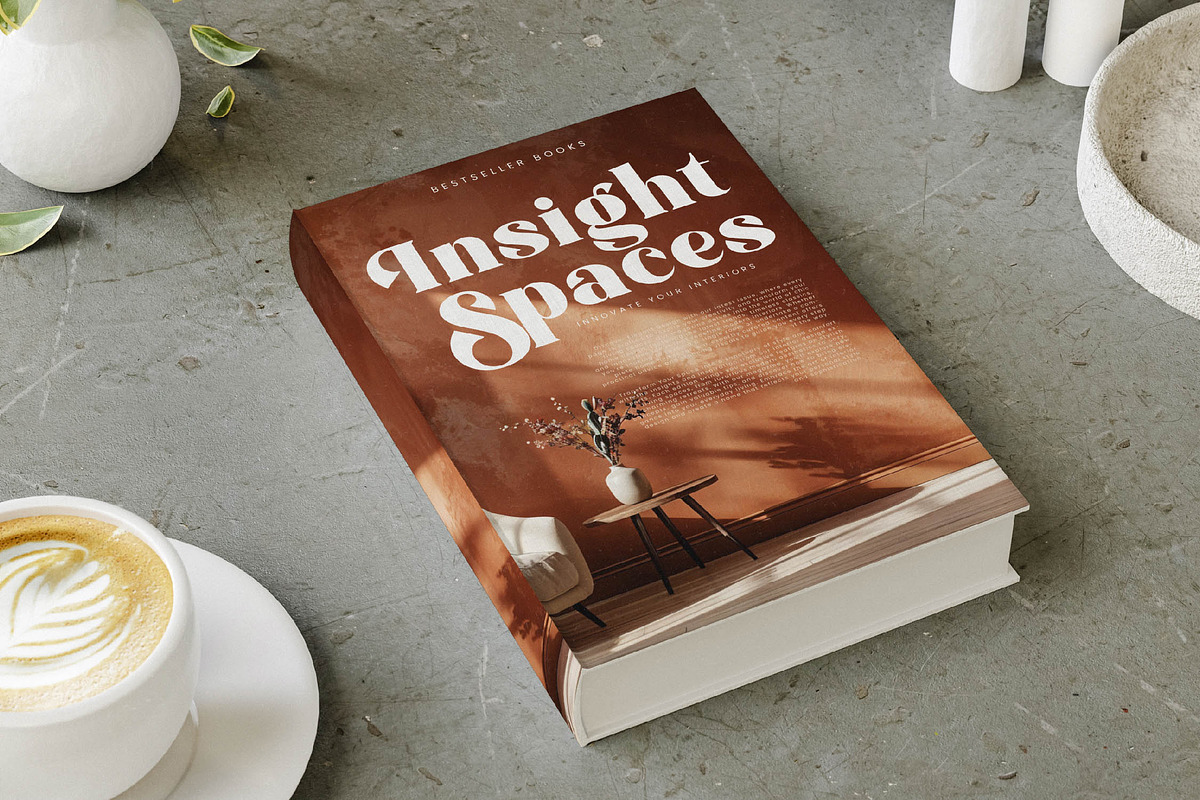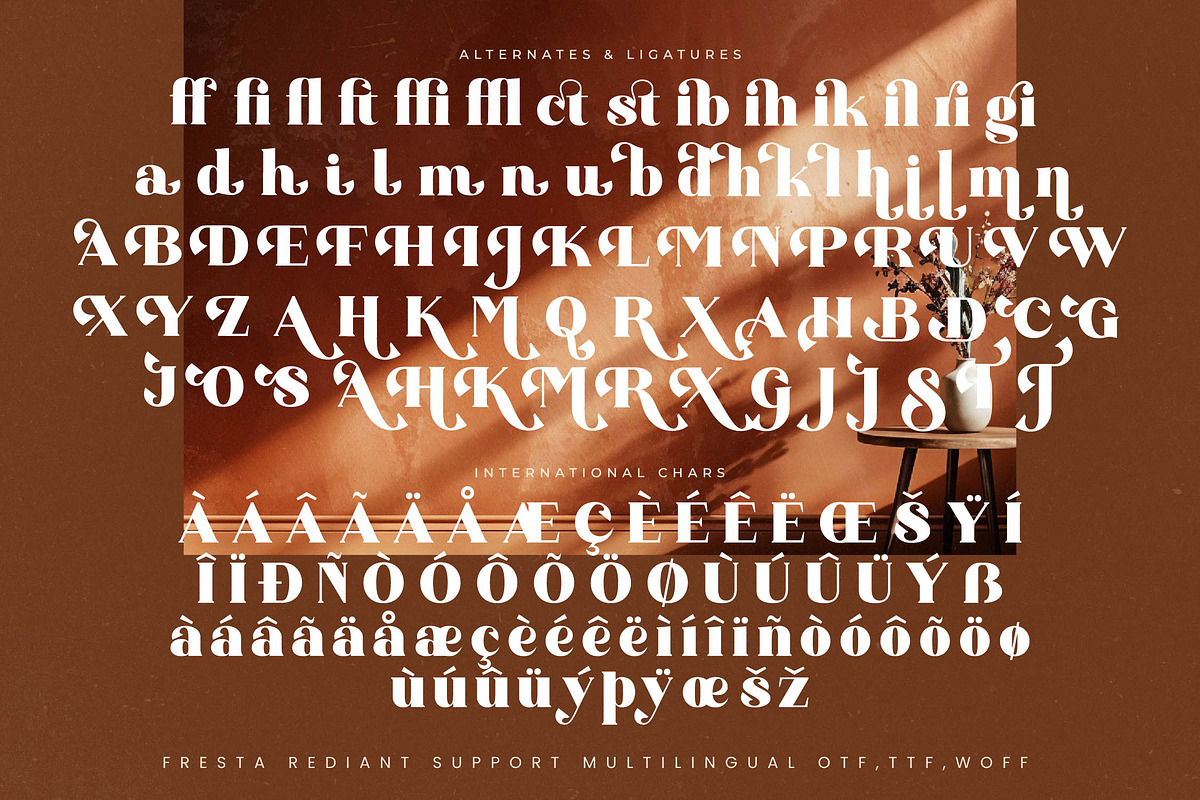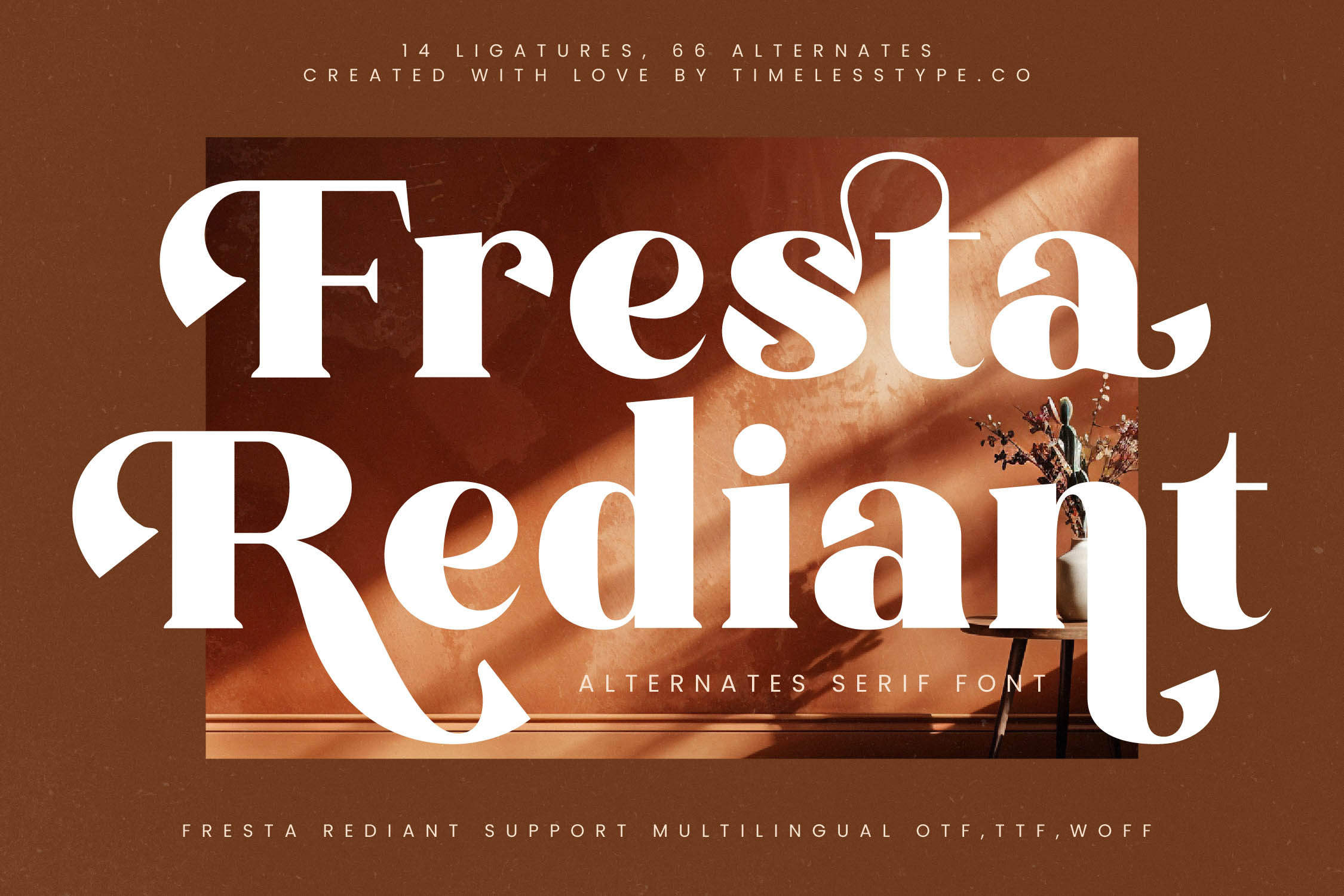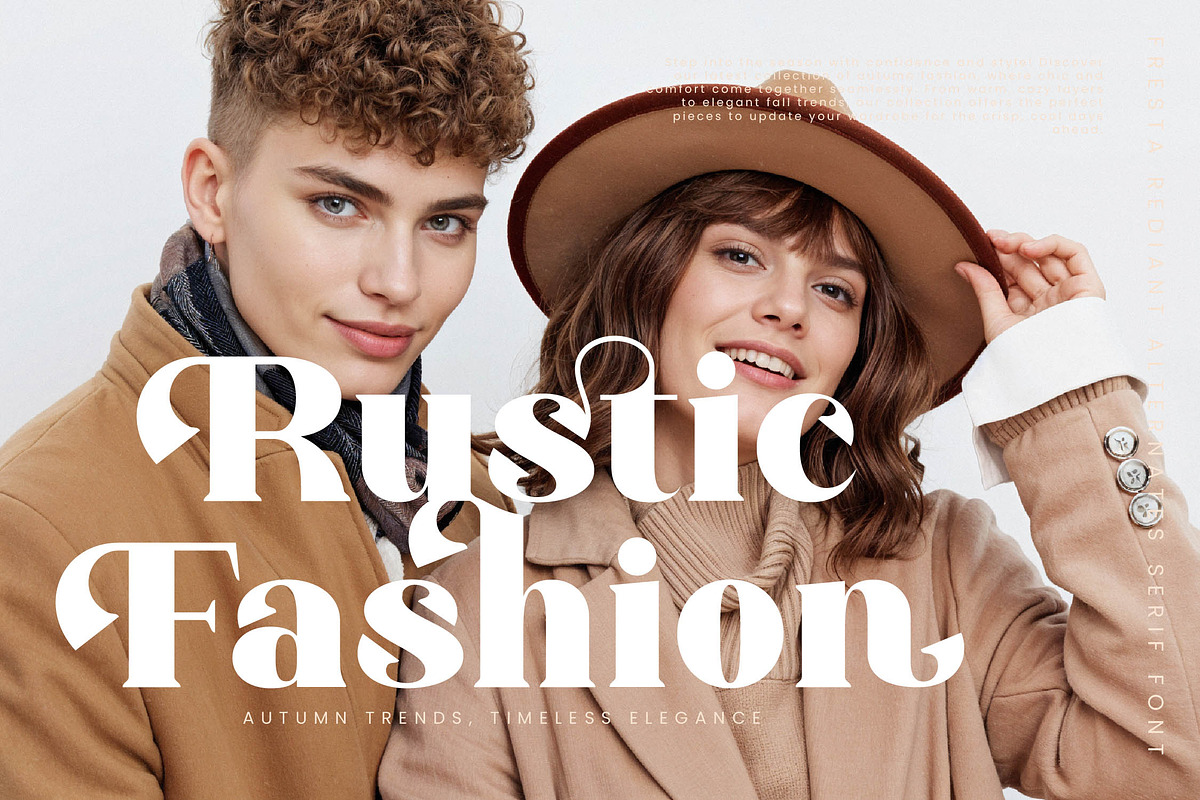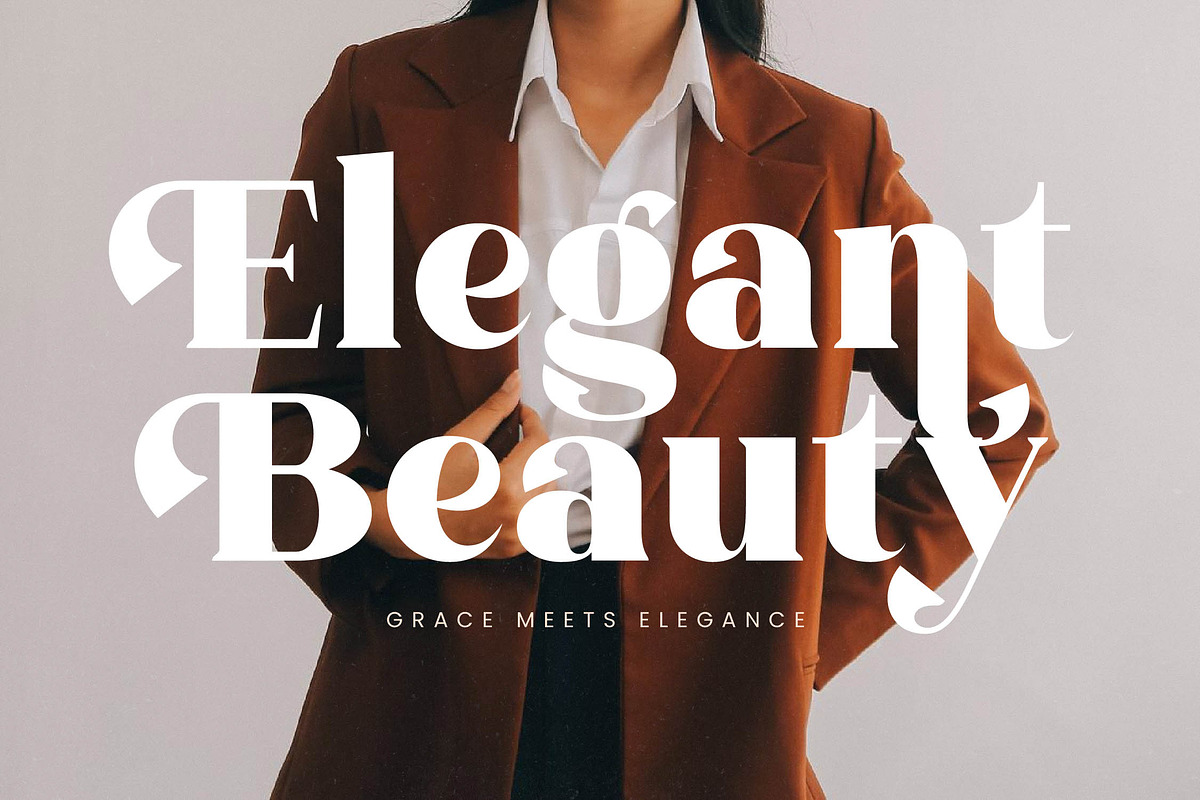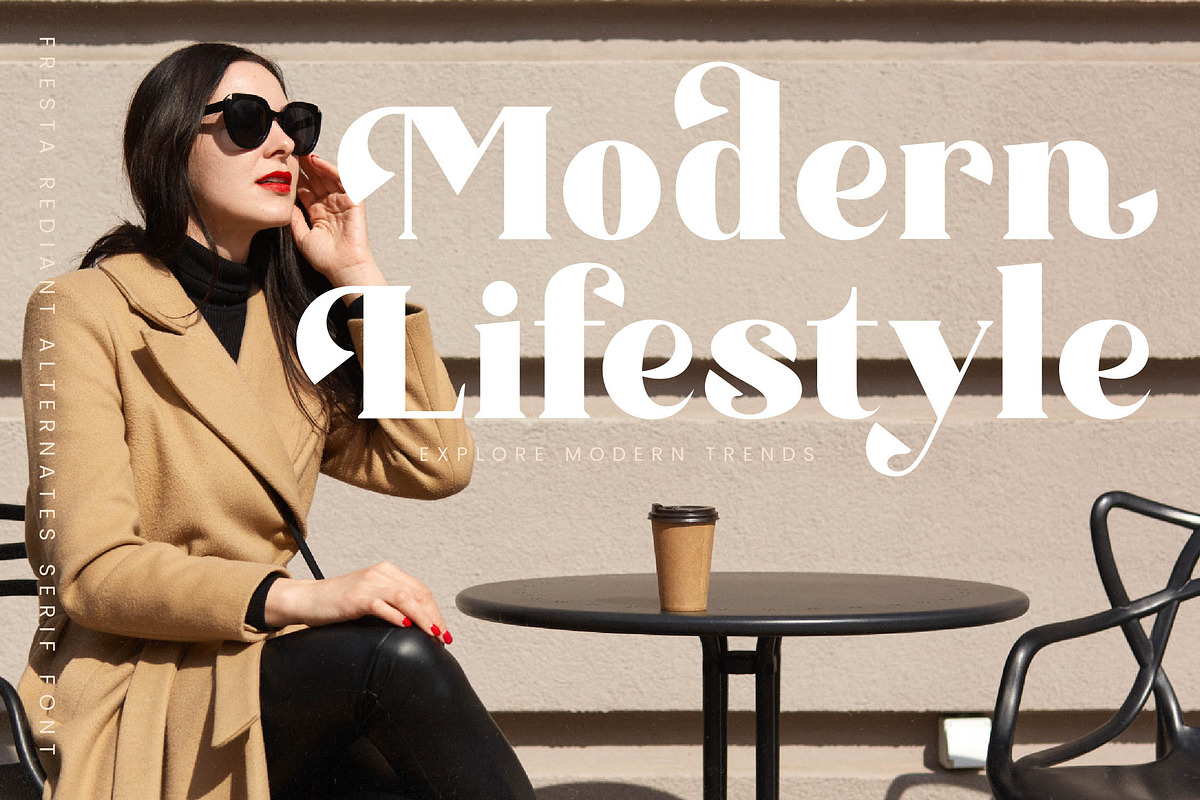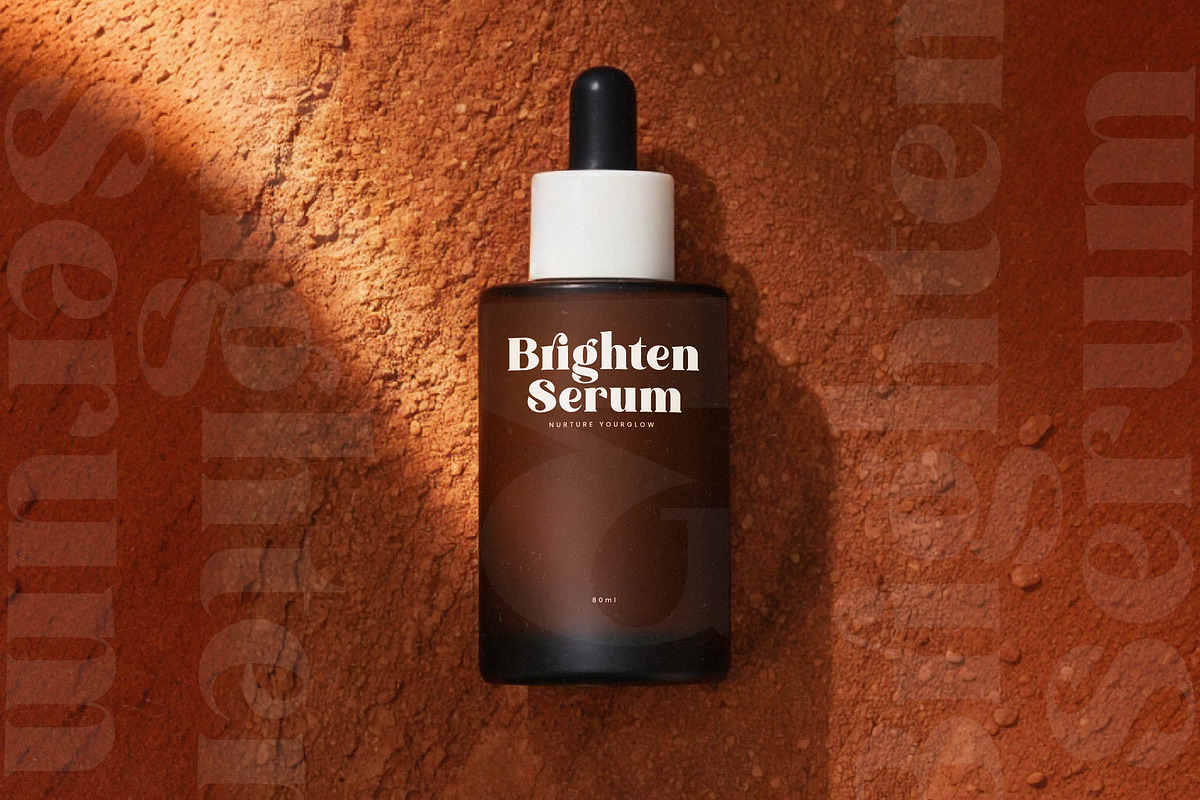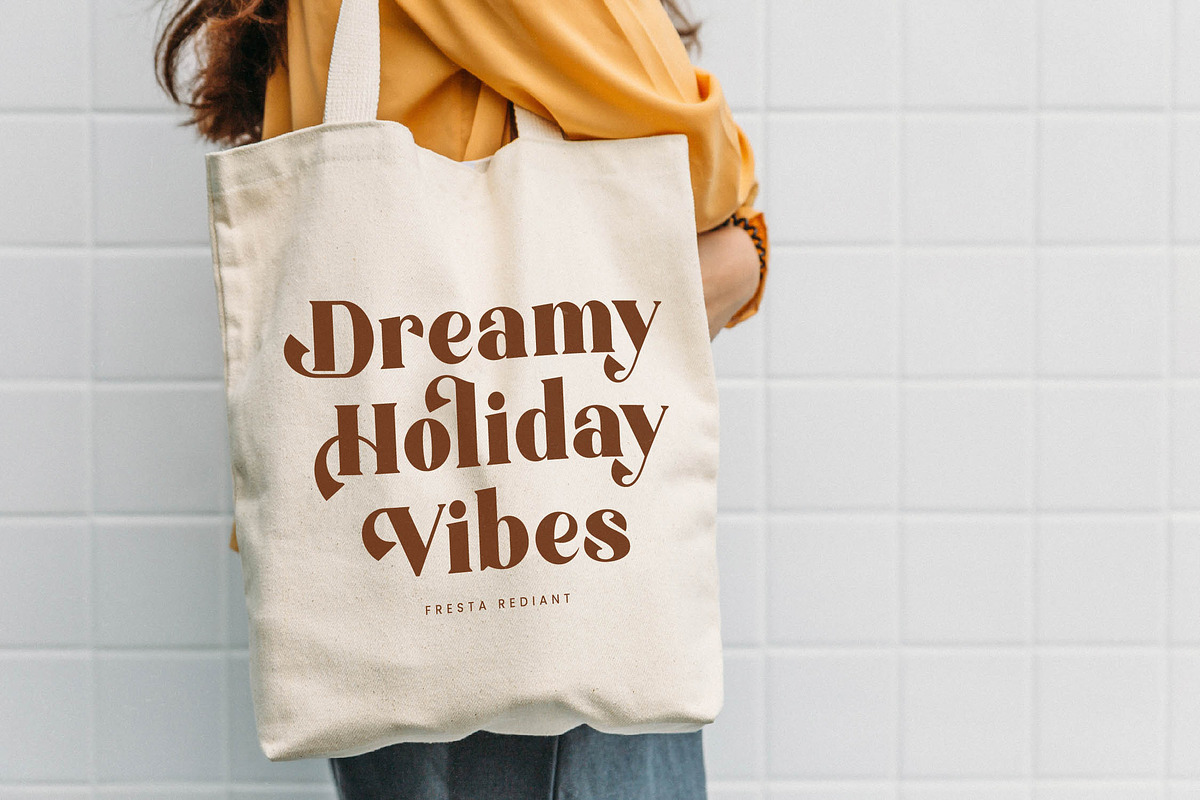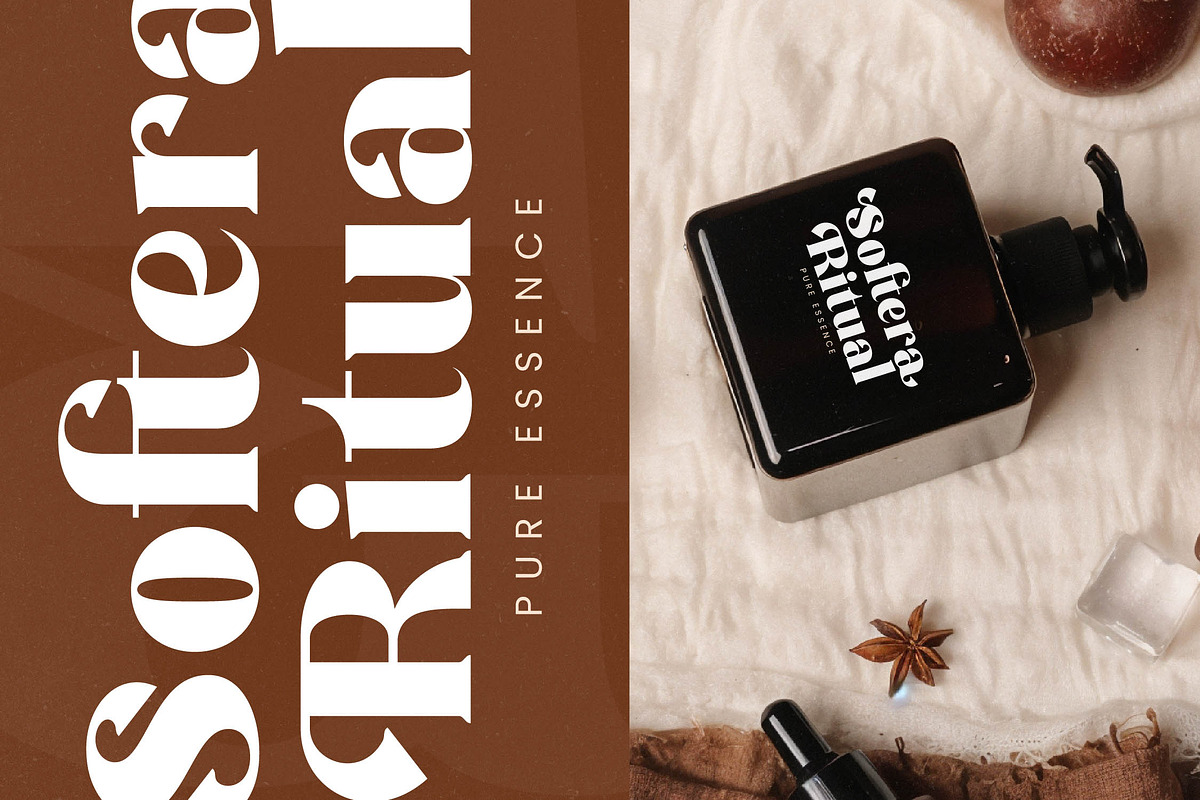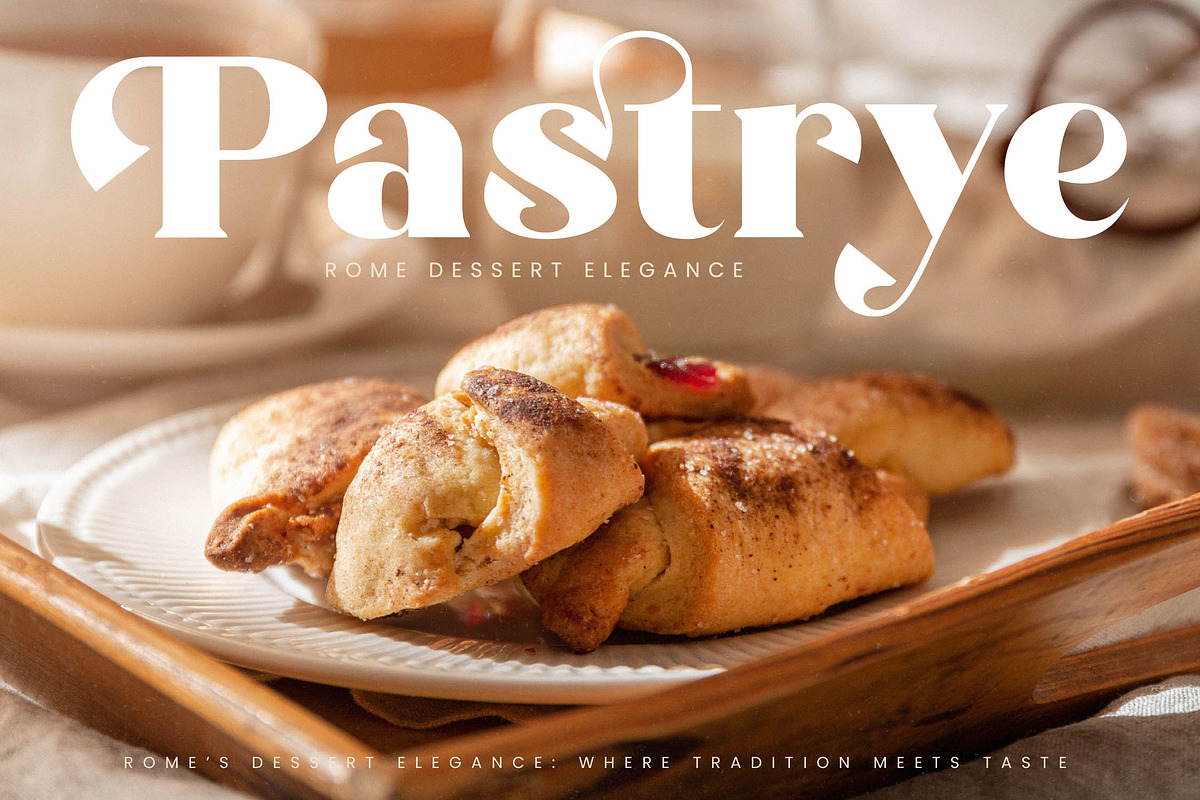
Fresta Rediant - Luxury Serif Font
Fresta Rediant captures a sense of effortless grace, inviting you into a world where every letter feels like a whispered secret of elegance. It is more than just a typeface; it is a visual experience designed to evoke warmth and timeless beauty.
Inspired by the interplay of light and shadow in artisanal Mediterranean interiors, this font draws from a blend of classical structure and organic fluidity. Its shapes mirror the curves of hand-crafted pottery and the sharp clarity of modern architectural silhouettes.
Boasting a modern serif display presence, the typeface exudes a luxury typography vibe that demands attention without raising its voice. The high-contrast serif strokes create a rhythmic dance across the page, making it a perfect editorial font for those seeking significant branding impact.
As the modern serif trend continues to dominate the visual landscape, designers are looking for editorial display fonts that offer more than standard glyphs. Fresta Rediant meets this demand by providing character-driven typography that feels both current and heirloom-quality.
This versatile typeface is exceptionally well-suited for high-end logo design and comprehensive branding projects that require a touch of class. From sophisticated editorial layouts and perfume packaging to romantic wedding stationery and avant-garde fashion campaigns, it adapts beautifully to premium contexts.
The collection is rich with over 60 alternates and unique ligatures that allow for custom-tailored layouts, alongside elegant swashes for a decorative touch. Full multilingual support and international characters ensure global reach, making this a truly comprehensive tool for the discerning creative.
- Ligature 14 Alternate 66 & Swashes